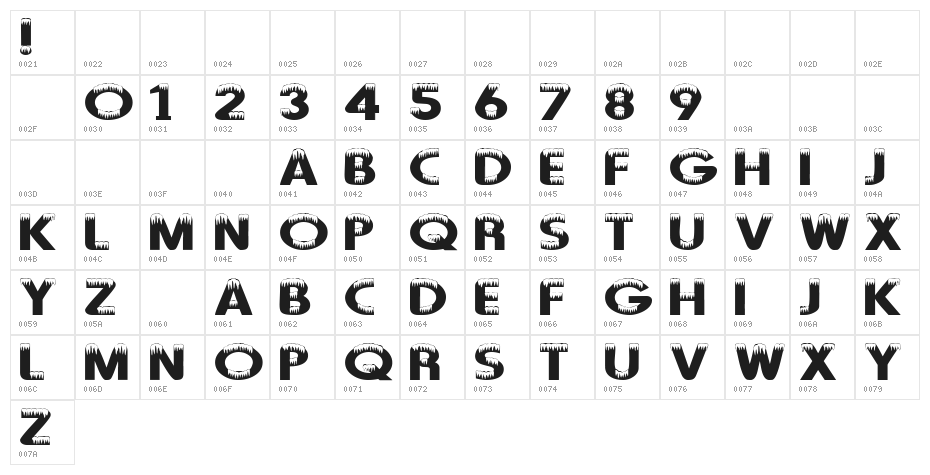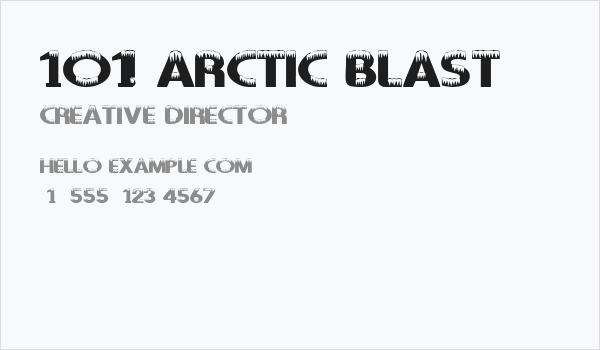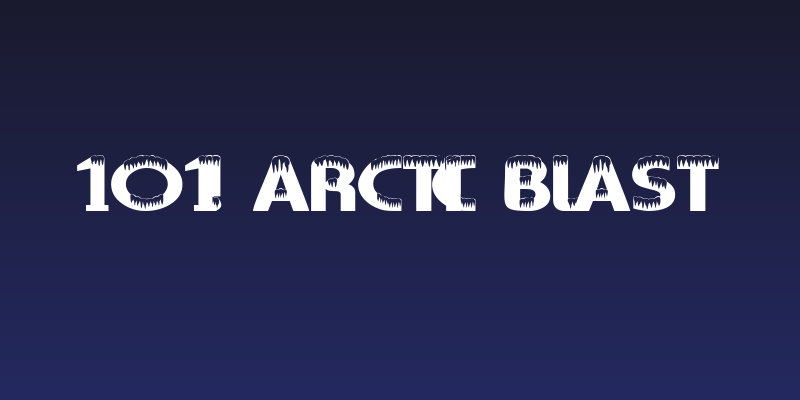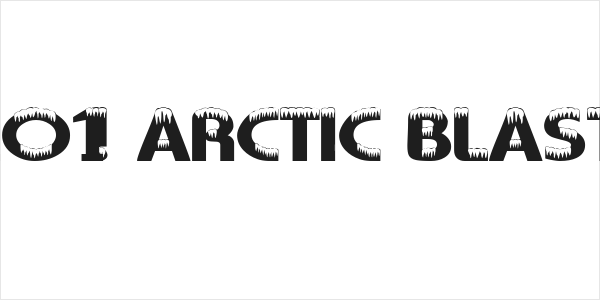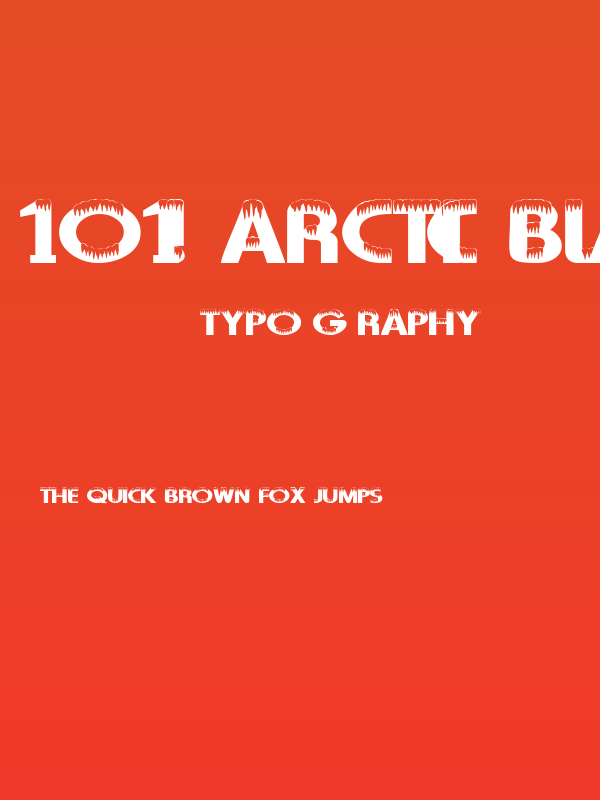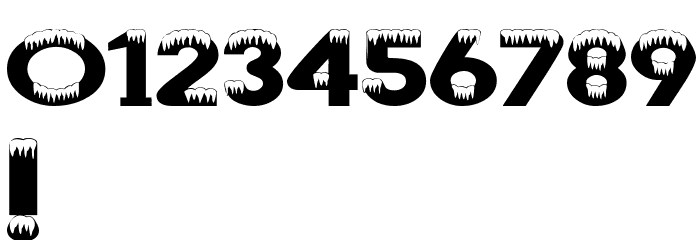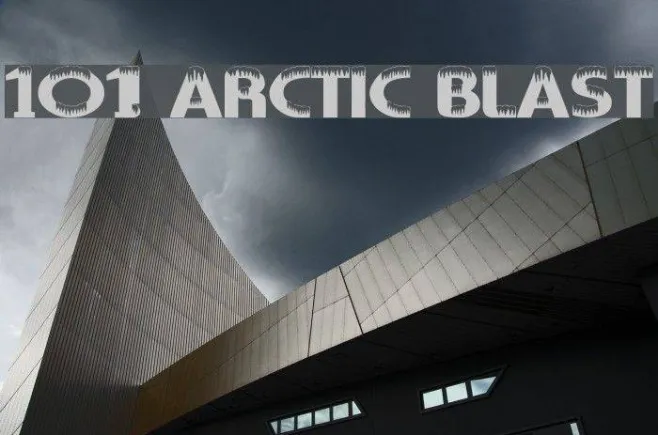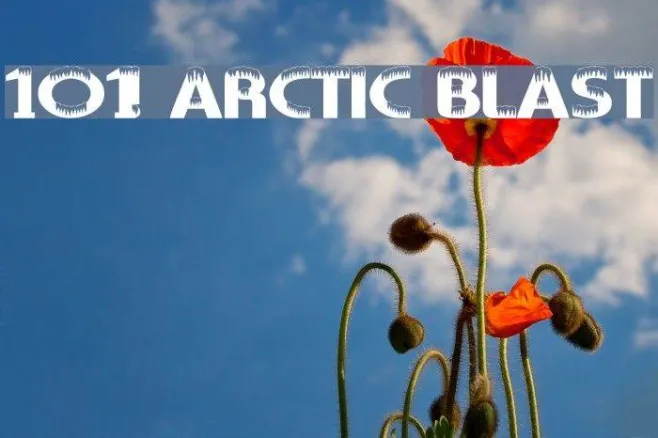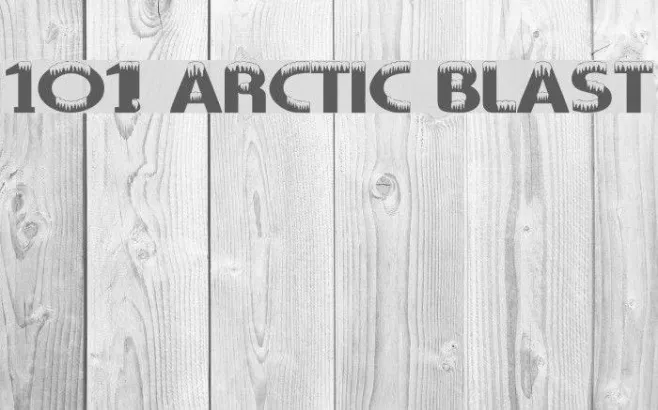
101! Arctic Blast Font
101! Arctic Blast Description
This font features a bold, decorative style with a unique icy effect on each character, resembling icicles hanging from the top. The uppercase letters are prominent and eye-catching, making them ideal for winter-themed designs. The numbers and special characters maintain the same frosty aesthetic, ensuring consistency across all elements. The overall design is playful yet impactful, perfect for capturing attention in seasonal promotions or festive materials.
| Proposed Projects | Ideal for holiday cards, winter festival posters, seasonal branding, and any project requiring a frosty, festive touch. |